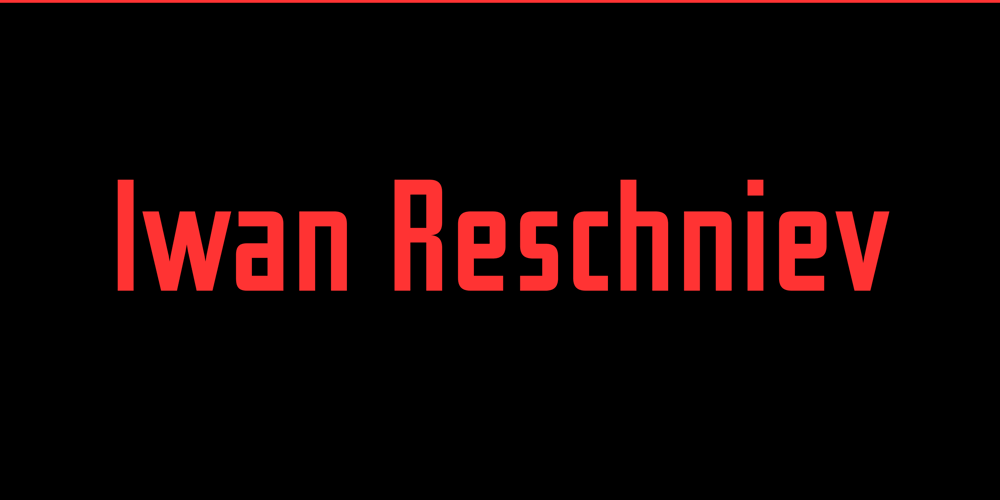
Iwan Reschniev Font Family was designed by Jan Tschichold, Sebastian Nagel and published by FDI. Iwan Reschniev contains 7 styles and family package options. In August 1930, Jan Tschichold described a new typeface, that is “producable by everybody without further knowledge” in the publication Börsenblatt für den Deutschen Buchhandel. Sebastian Nagel has extended the original drawing to 7 weights (black, extrabold, bold, semibold, regular, semilight and light), with full coverage of the Latin 1 character set. All fonts also include small caps and alternate characters.